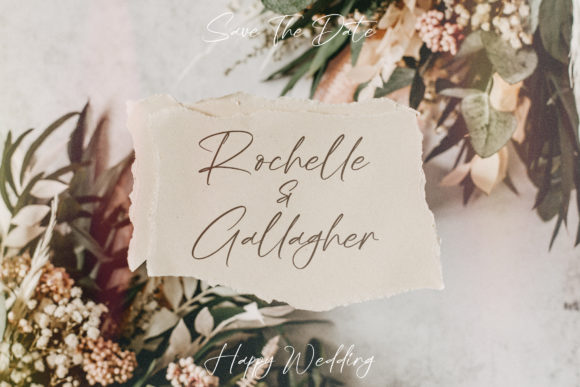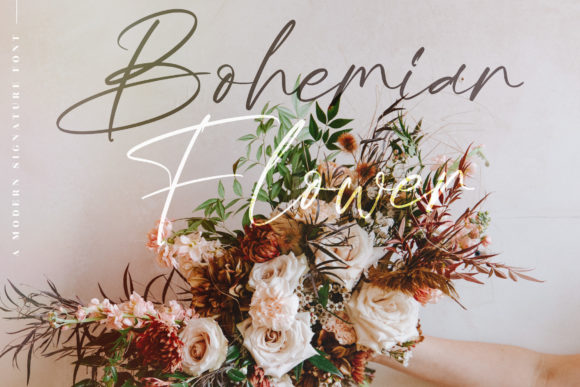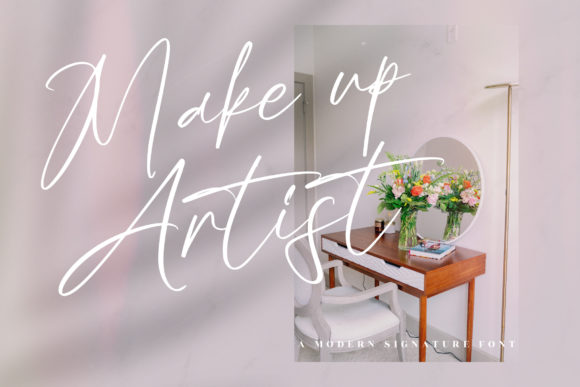
Introduction to Blackmore Font
Blackmore is a delicate and fashionable script font.
It is perfect for any branding project such as logos, t-shirt printing, creative products, and more It will look extraordinary in a variety of contexts.
Key Features of Blackmore Font